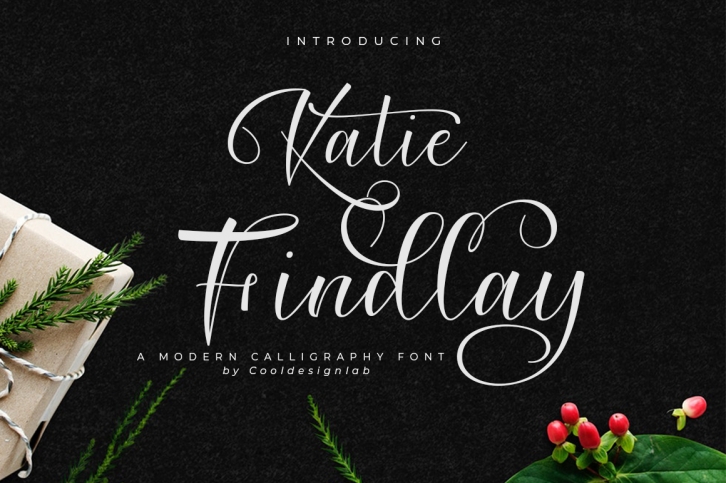
Katie Findlay Script is a trendy and unique font with an authentic style. It was designed by cooldesignlab and it's a great choice for creative people who need such a font. It was released on January 29, 2020 and the file size is 11.57 MB. Katie Findlay Script will add an organic vibe to any design idea!